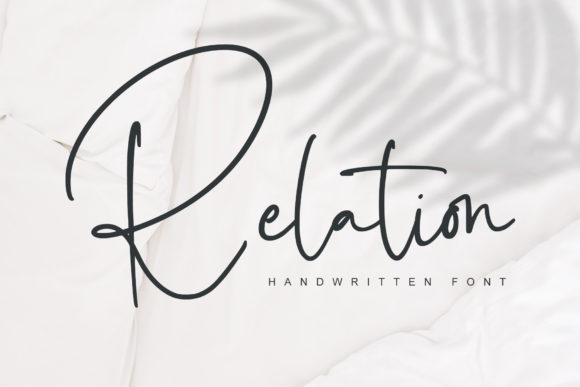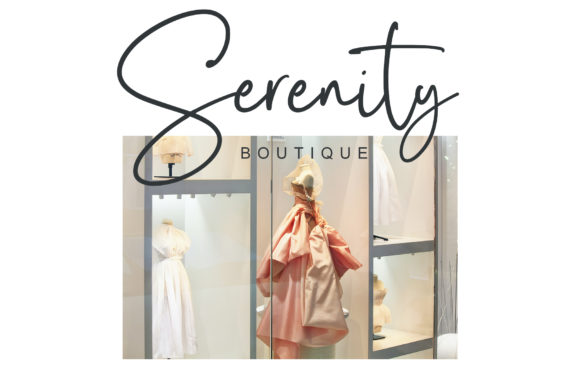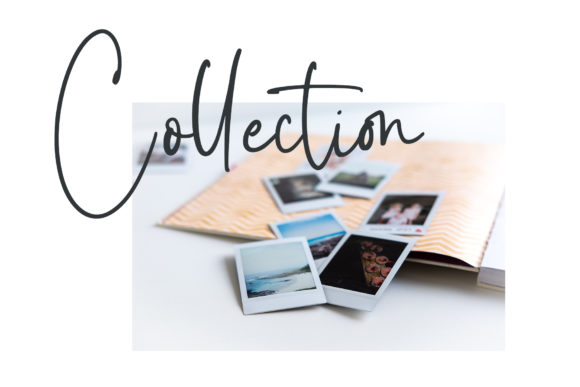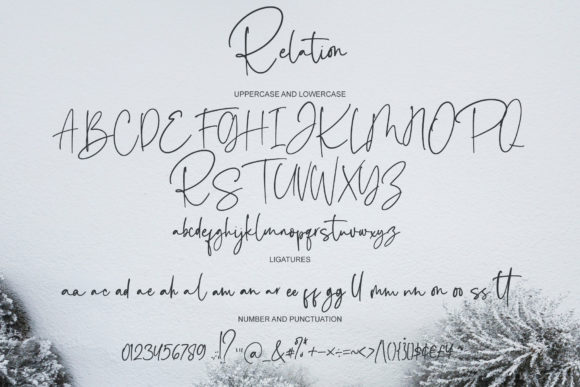
Relation Font
About Relation Font
Relation is a thin and casual handwritten font. This font is great for your next creative projects such as watermark on photography, album cover, logo, business card, and many other design project.